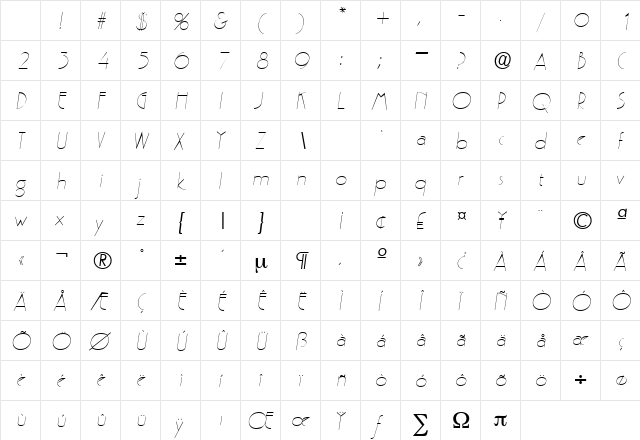
PergamonItalic is a composed and adaptable typeface that performs quietly and consistently across a wide range of design contexts. The slanted form adds forward momentum and visual energy.
Pro Tip: Use PergamonItalic for emphasis, pull quotes, and subheadings where its slanted energy can add rhythm to the layout.